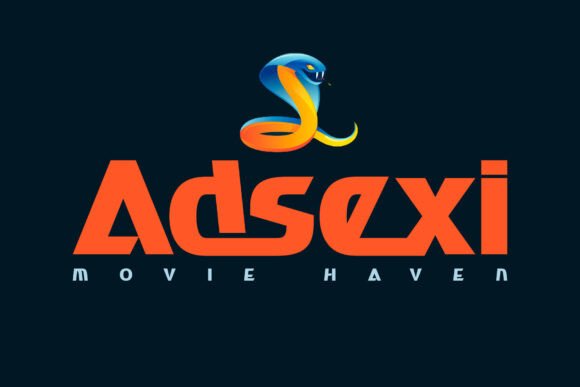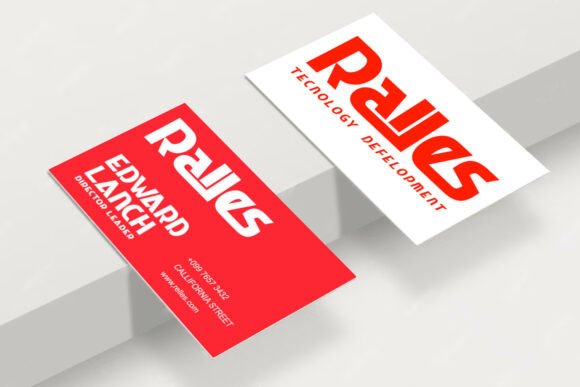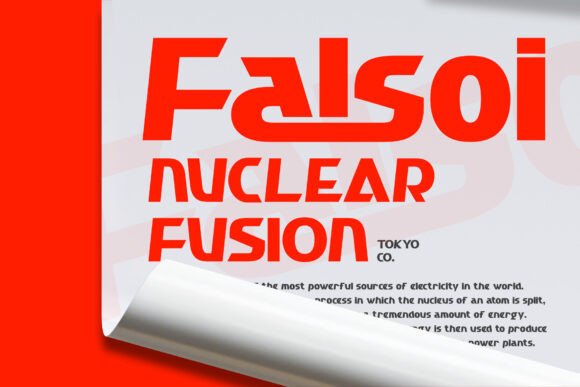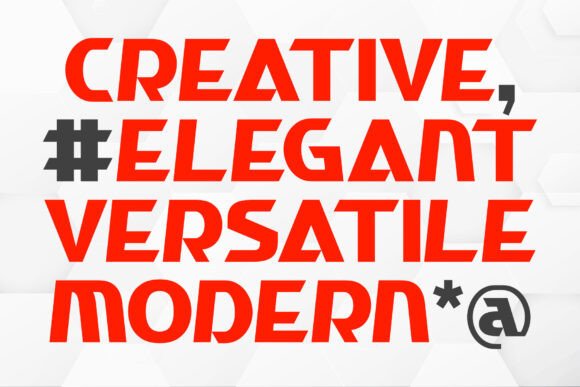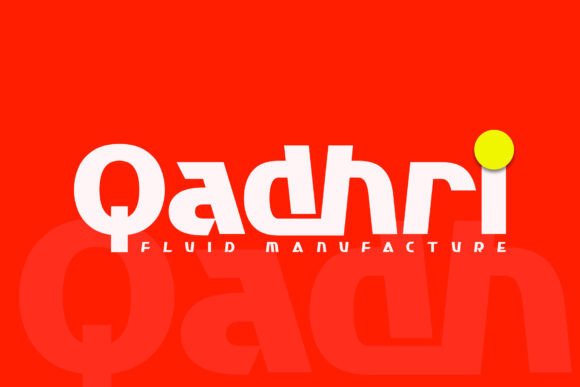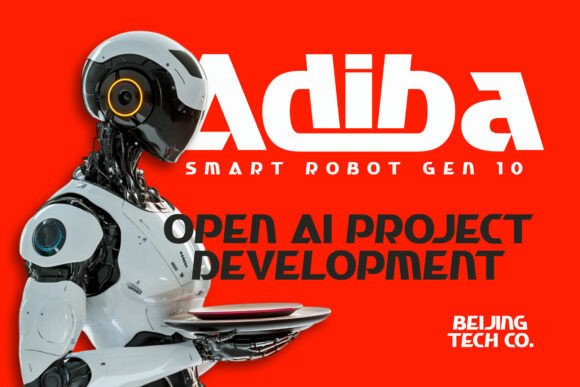
Gabelo Font: Elevate Your Brand with a Sleek and Futuristic Typeface
In the world of typography, fonts play a crucial role in shaping the identity of a brand or project. With the ever-evolving digital landscape, it’s essential to have a font that not only stands out but also conveys a sense of innovation and forward-thinking design. This is where Gabelo Font comes into play – a sleek and futuristic typeface designed to elevate your brand or project to new heights.
What is Gabelo Font?
Gabelo Font is a modern sans-serif font that boasts clean lines, sharp edges, and a futuristic aesthetic. Its sleek design makes it perfect for technology-driven businesses, digital products, and creative projects that aim to convey a cutting-edge and sophisticated look. Whether you’re a designer, craftsperson, or entrepreneur, Gabelo Font is an excellent choice for those who want to make a statement with their typography.
Key Features of Gabelo Font
- Clean Lines and Sharp Edges: Gabelo Font features clean lines and sharp edges that give it a modern and futuristic look. This design element makes it perfect for digital platforms, where clarity and legibility are essential.
- Modern Aesthetics: The font’s modern aesthetic is characterized by its geometric shapes and minimalist design. This makes it an excellent choice for brands and projects that want to convey a sense of innovation and forward-thinking design.
- High Versatility: Gabelo Font is highly versatile and can be used for a wide range of applications, from digital products and technology-driven businesses to creative projects and advertising campaigns.
- Excellent Legibility: The font’s design prioritizes legibility, making it easy to read on various digital platforms, including mobile devices, tablets, and desktop computers.
Who Can Benefit from Gabelo Font?
Gabelo Font is an excellent choice for a variety of designers, craftspersons, and entrepreneurs, including:
- Technology-Driven Businesses: Companies that specialize in technology, software, or digital products can benefit from Gabelo Font’s modern and futuristic aesthetic.
- Digital Product Designers: Designers who create digital products, such as apps, websites, or video games, can use Gabelo Font to convey a sense of innovation and cutting-edge design.
- Creative Project Owners: Owners of creative projects, such as art exhibitions, fashion brands, or architecture firms, can use Gabelo Font to add a touch of sophistication and modernity to their brand or project.
- Advertising Agencies: Advertising agencies can use Gabelo Font to create eye-catching and modern ad campaigns that grab the attention of their target audience.
How to Use Gabelo Font Effectively
To get the most out of Gabelo Font, consider the following tips:
- Pair it with Other Fonts: Gabelo Font can be paired with other fonts to create a unique and visually appealing typography. Experiment with different font combinations to find the perfect match for your brand or project.
- Use it Consistently: Consistency is key when it comes to typography. Use Gabelo Font consistently across all your digital platforms to create a cohesive brand identity.
- Experiment with Font Sizes and Colors: Don’t be afraid to experiment with different font sizes and colors to add visual interest to your design.
Gabelo Font is a sleek and futuristic typeface designed to elevate your brand or project to new heights. With its clean lines, sharp edges, and modern aesthetics, this font is perfect for technology-driven businesses, digital products, and creative projects that aim to convey a cutting-edge and sophisticated look. Whether you’re a designer, craftsperson, or entrepreneur, Gabelo Font is an excellent choice for those who want to make a statement with their typography.